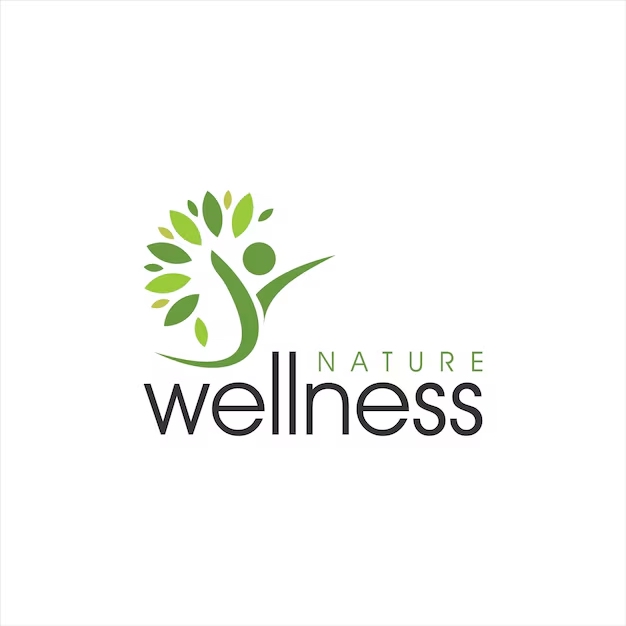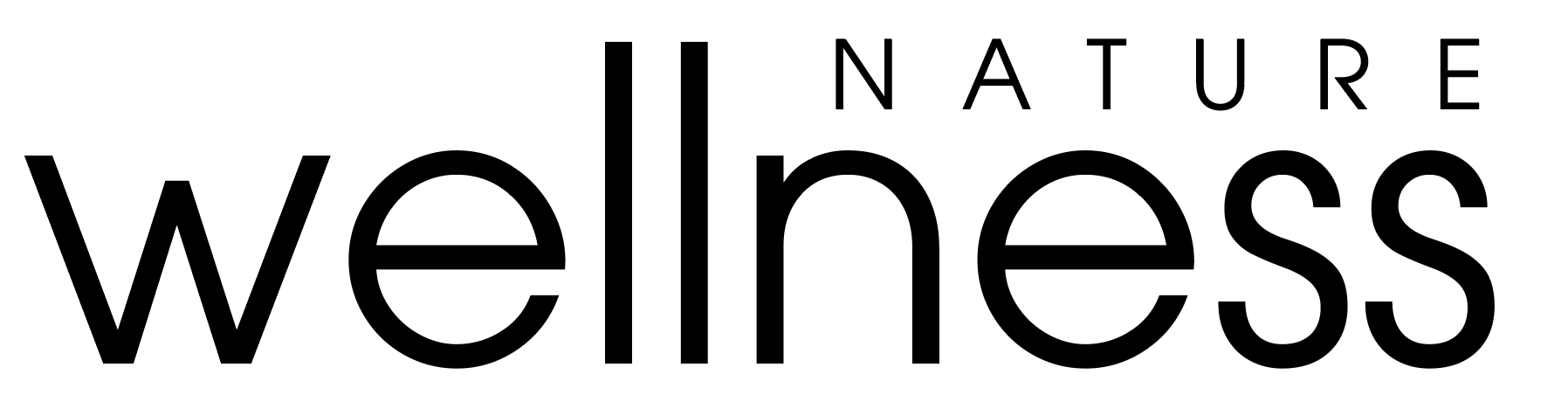
I like the look of the typeface for the word “wellness” - particularly the tall ascender for the letter “l”. Do you know the name of this?
Avant Garde Book with manually elongated l’s.
Thanks for the ID. It’s clever how the l is stretched.